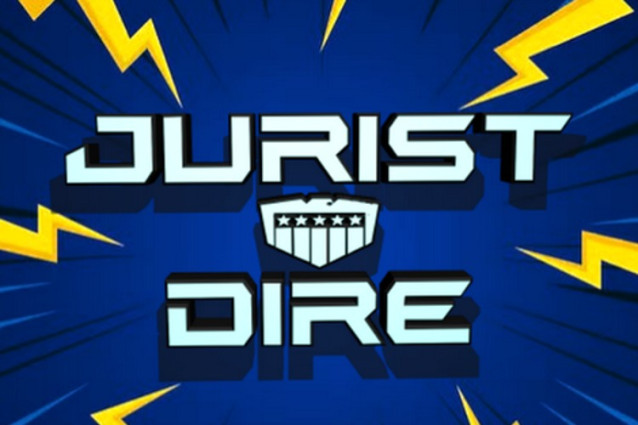
Jurist Dire Font
Jurist Dire Font is a sci-fi and Judge Dredd fan font, complete with the Judge badge in place of the tilde character. Sharp, sleek and futuristic, Jurist Dire can be used for any number of themes. The font family inlucdes 34 variations and manyof the letters have alternate forms between the upper and lower cases. Each version also includes an extended Latin character set, including accents and the Euro. Both OTF and TTF are included.